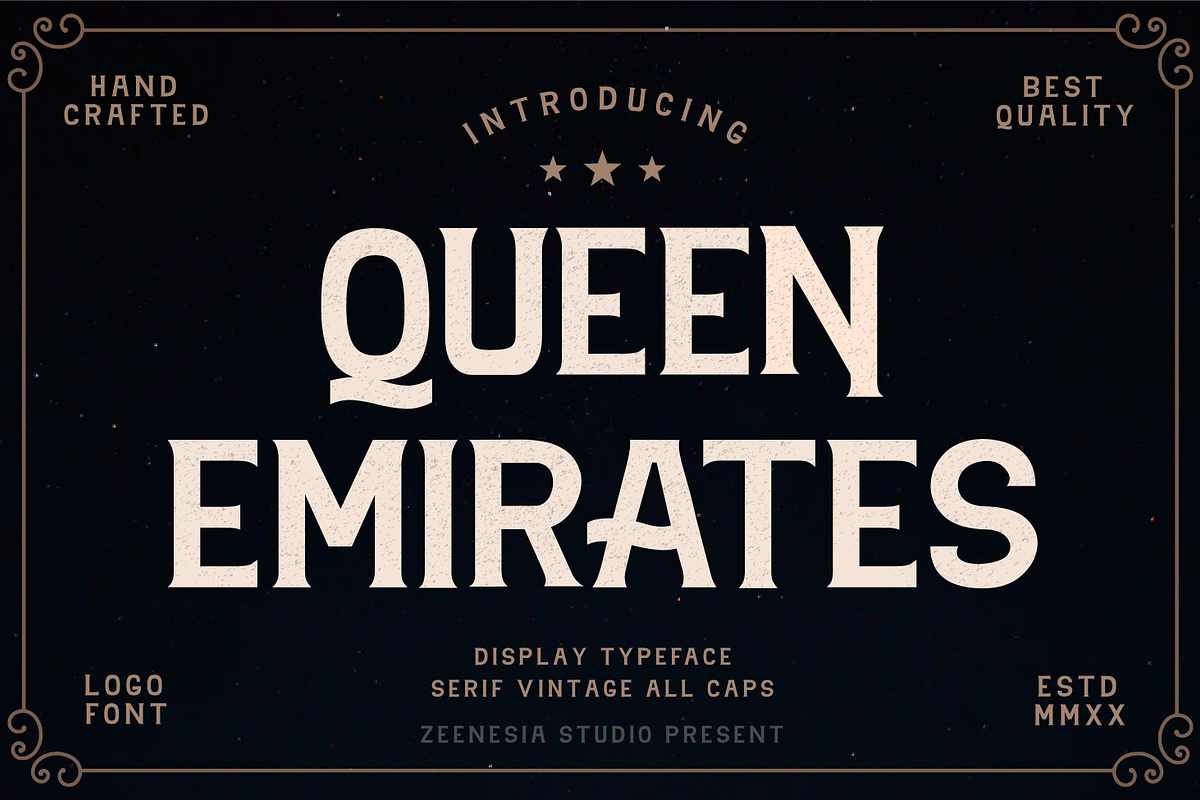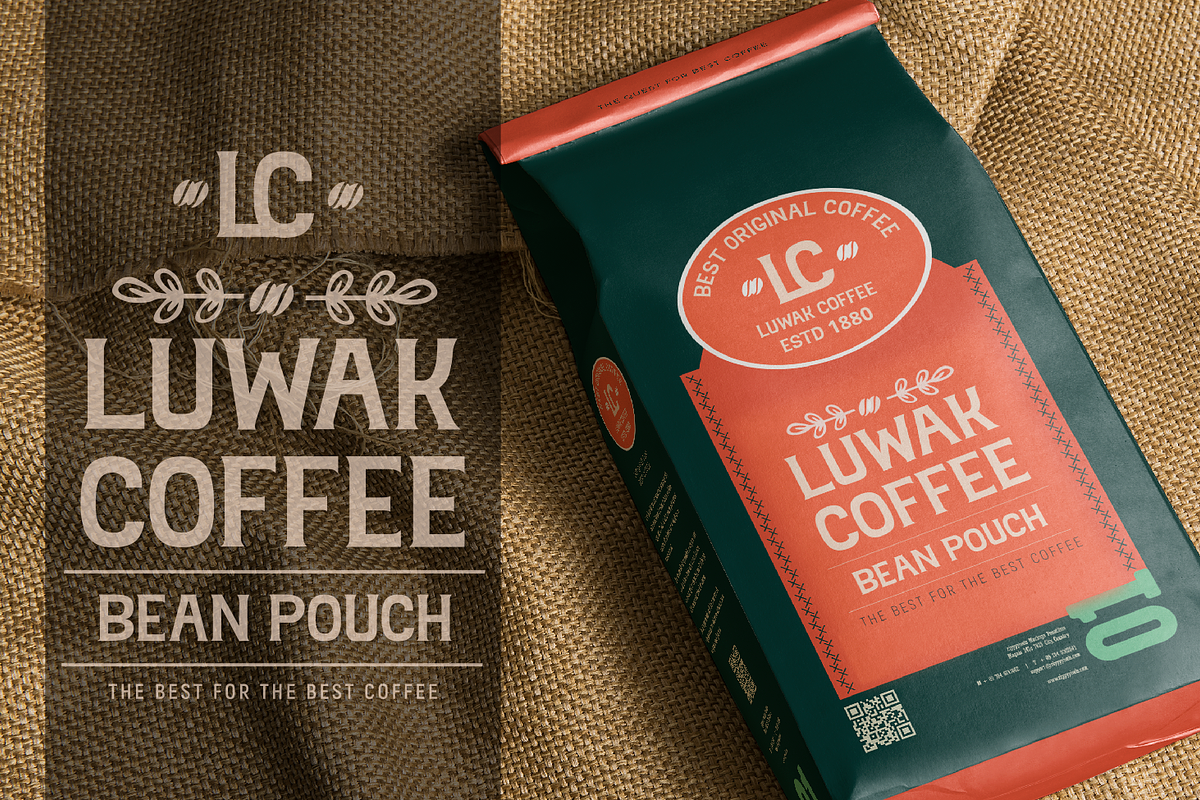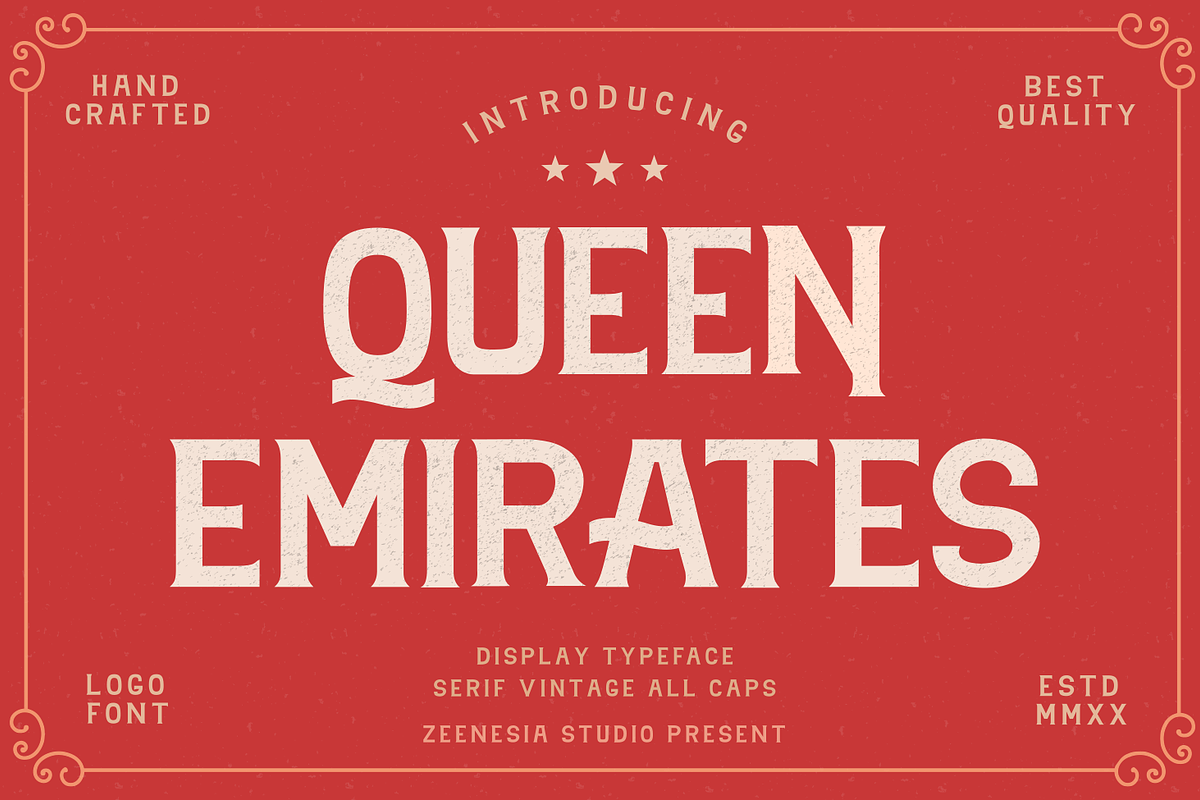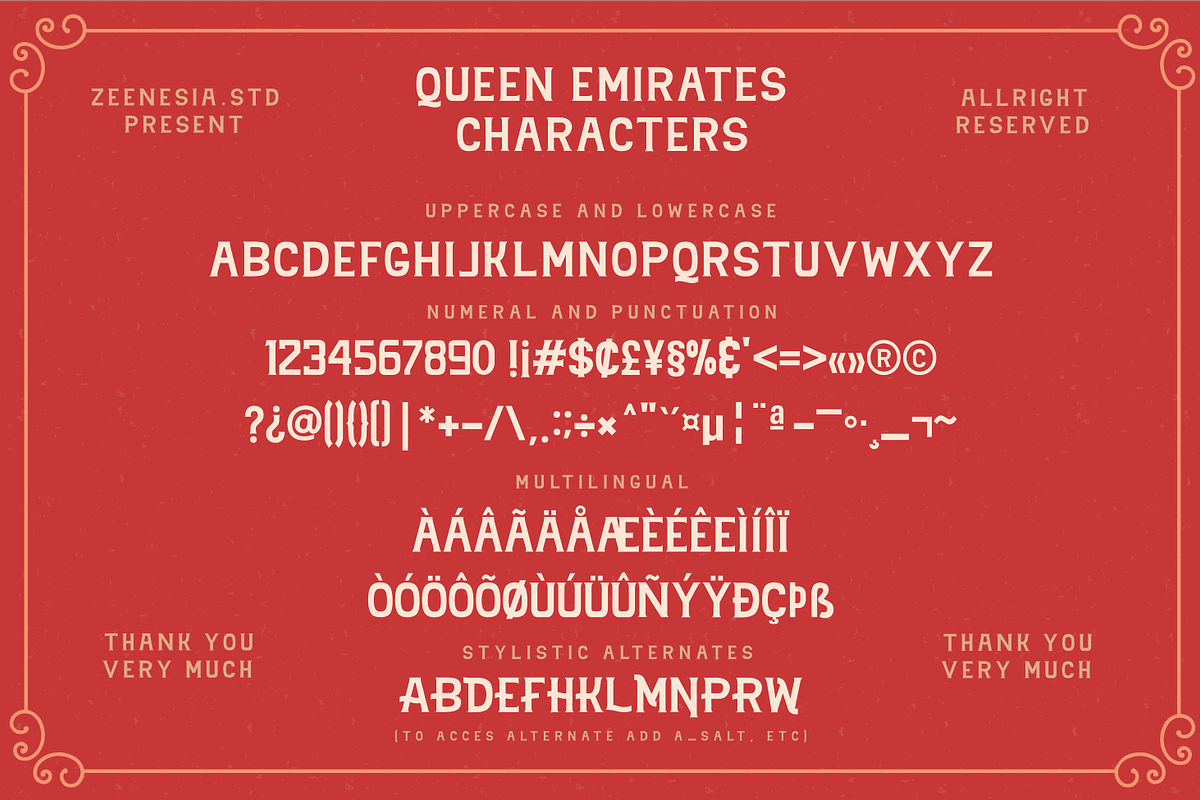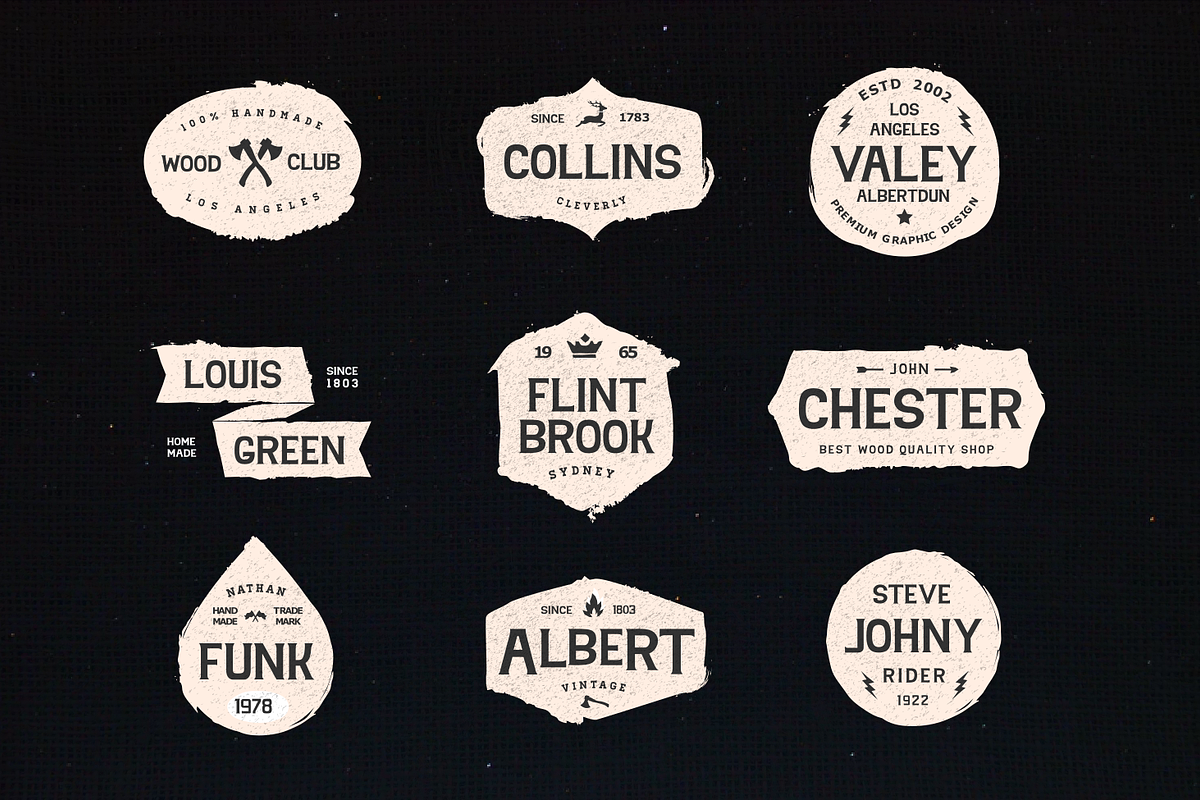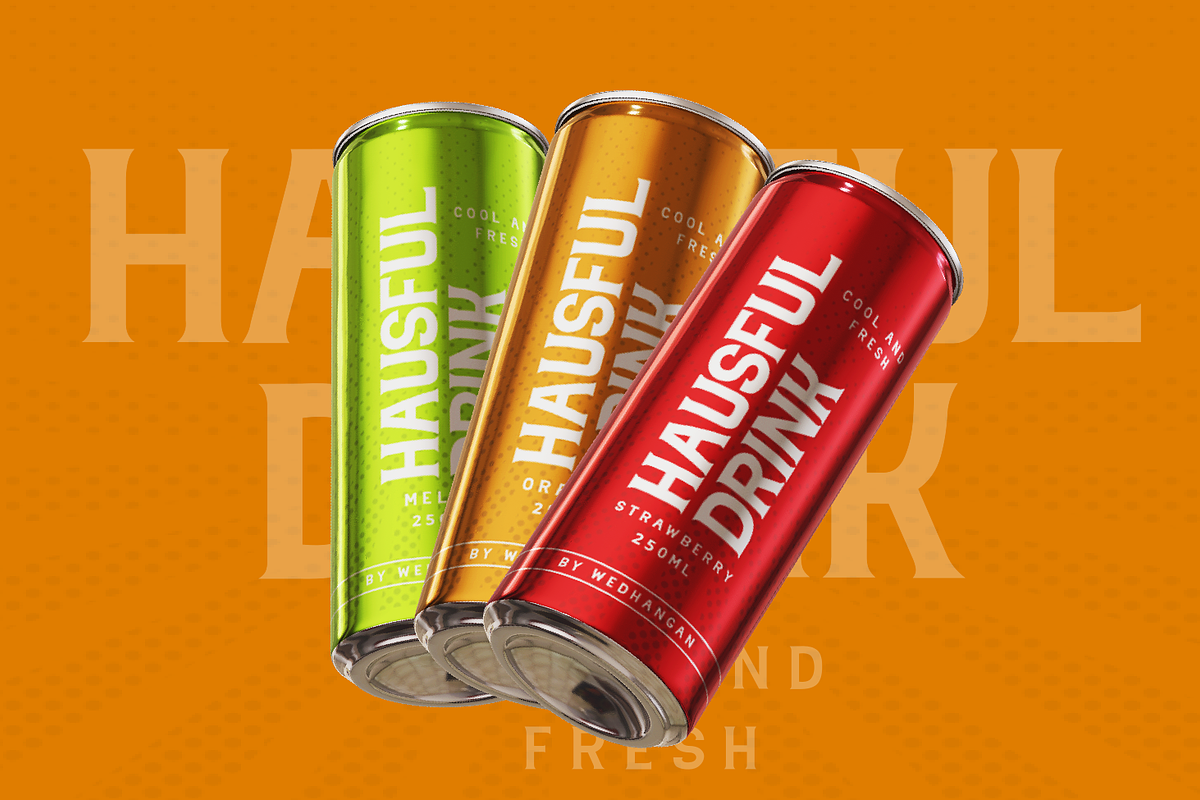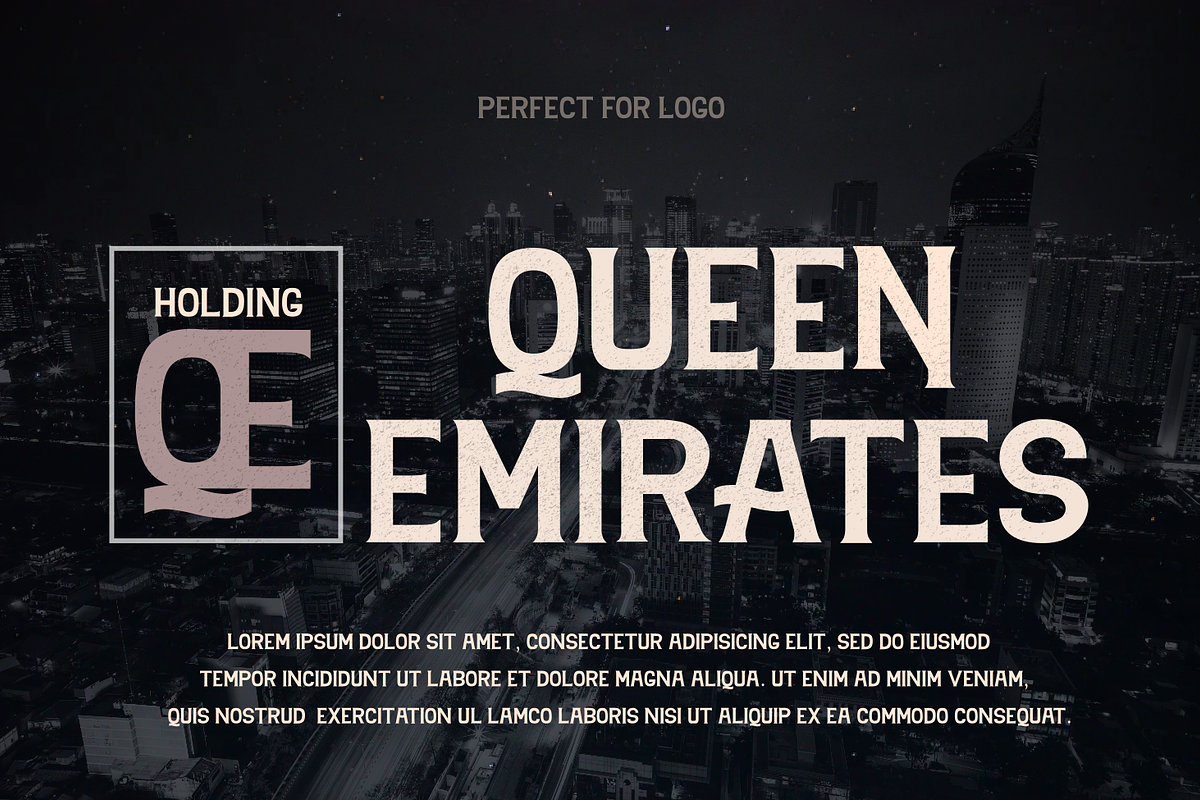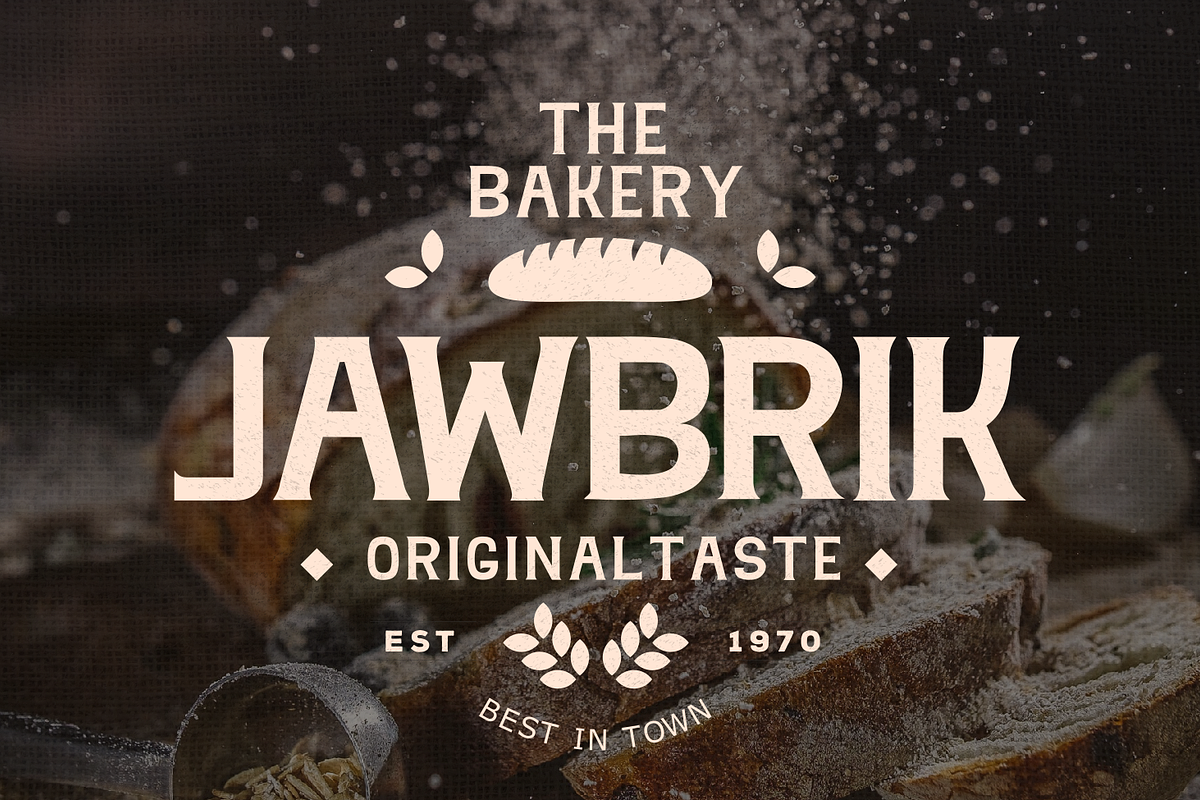
QUEEN EMIRATES - Serif Typeface
Introducing Queen Emirates is a vintage serif font crafted very carefully, Queen Emirates is perfect use for a logo for branding, typography design, badge design, product packaging, invitation, quotes, t-shirt design, label poster, special events and anything that need vintage taste.